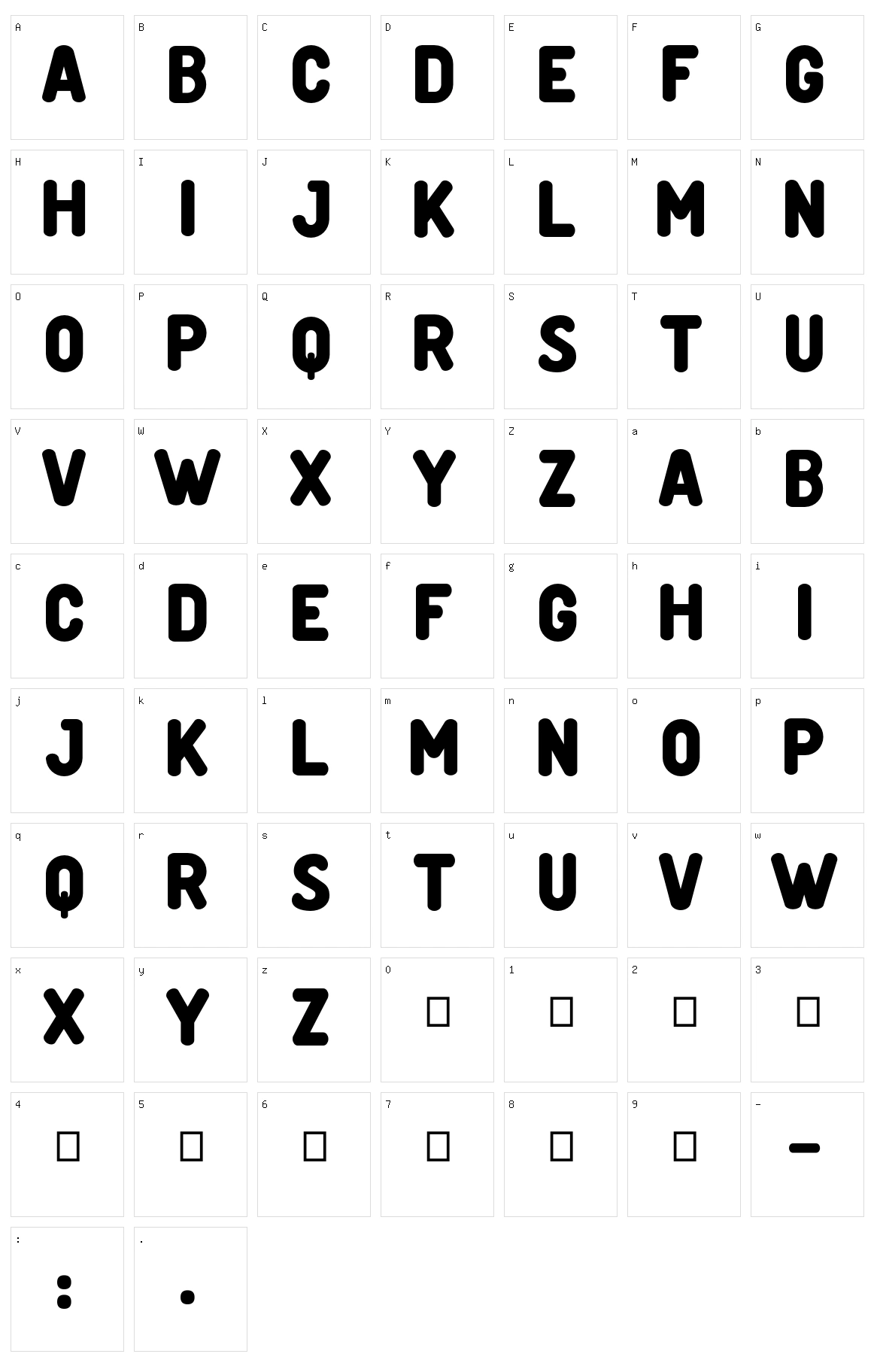
Creditverse Font
Creditverse is a font that replicates the one used for the end credits of the TV show Steven Universeâ¢.
N.-B.: The font may not be exactly the same as the actual one.